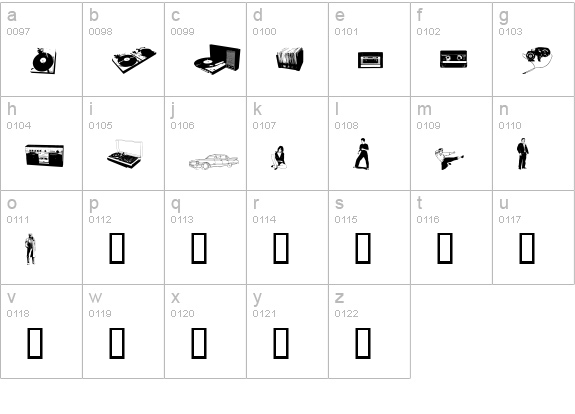
Fenotype dings preview Font Details
The Fenotype dings preview font is a whimsical and creative typeface perfect for adding a touch of fun and personality to your designs. This unique font features a variety of playful symbols and icons that can be used to enhance your projects with a touch of charm and character. Best of all, this font is available for free download at FontsMarket.com. Whether you're looking to add a little extra flair to your designs or simply want to experiment with a new typeface, the Fenotype dings preview font is a fantastic choice. Download it today and let your creativity shine!